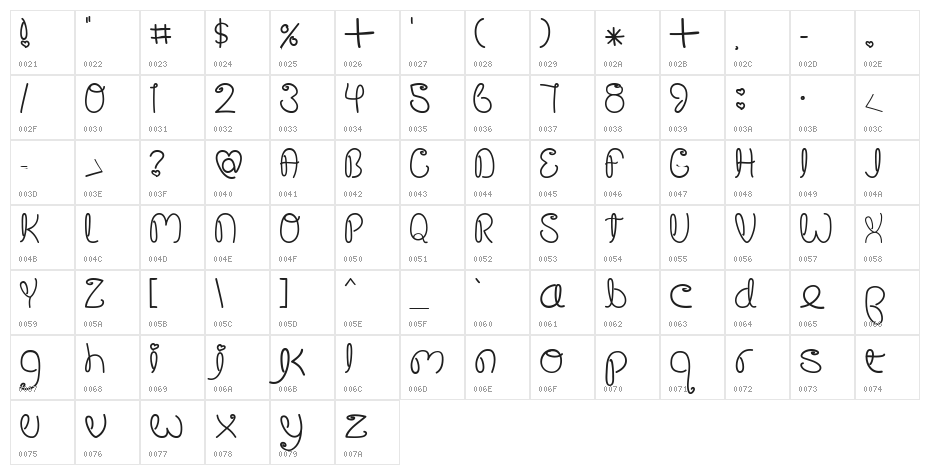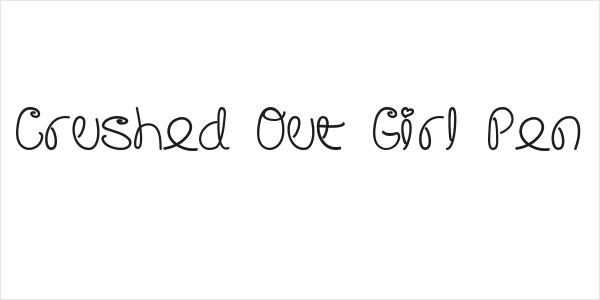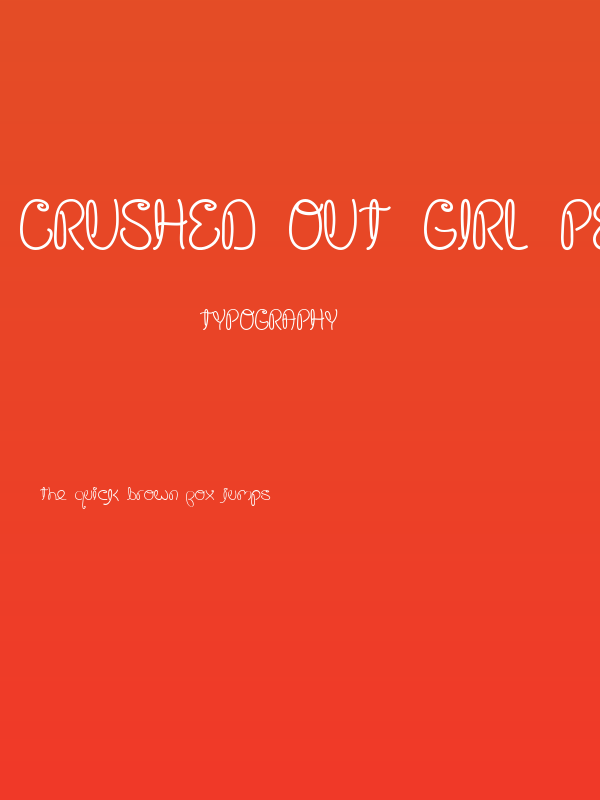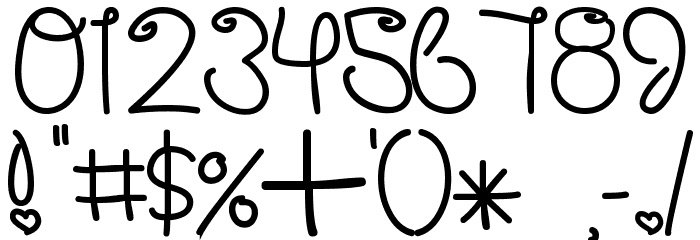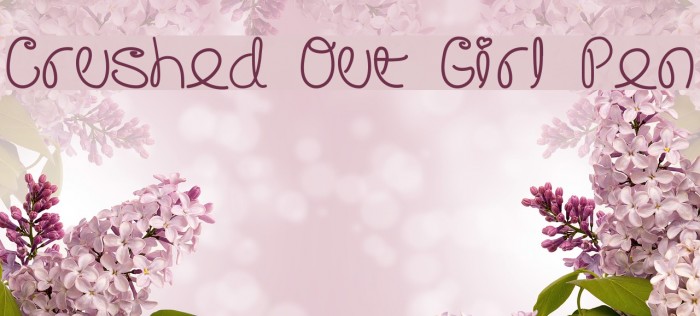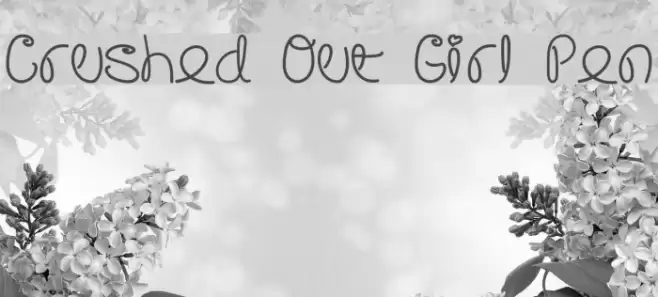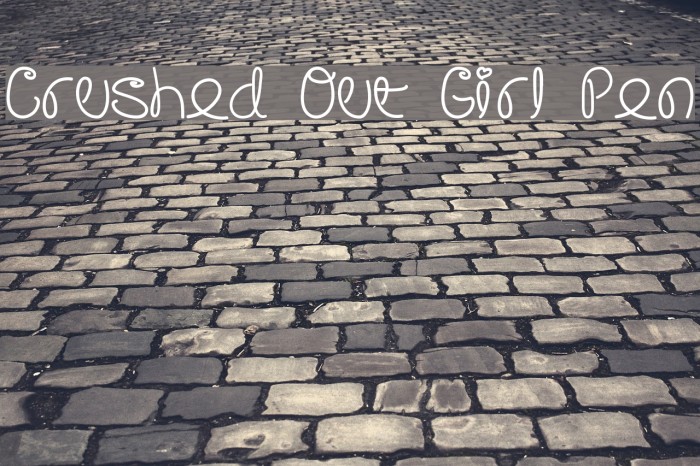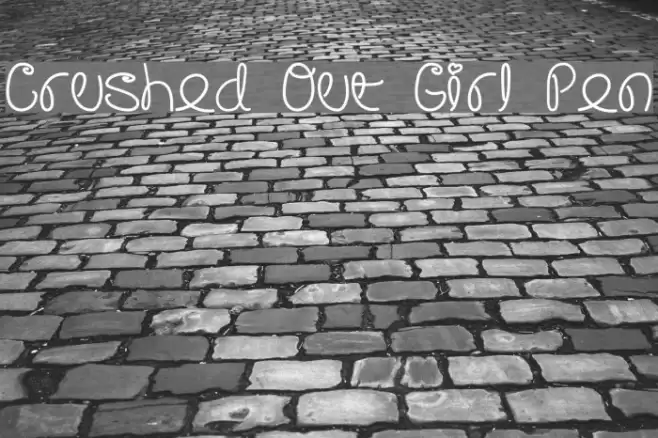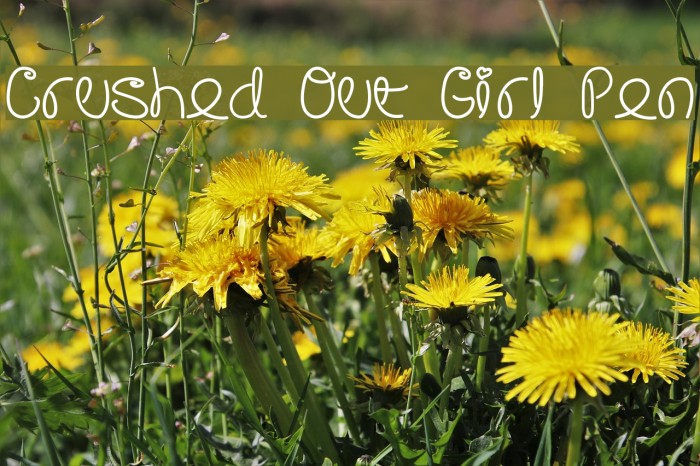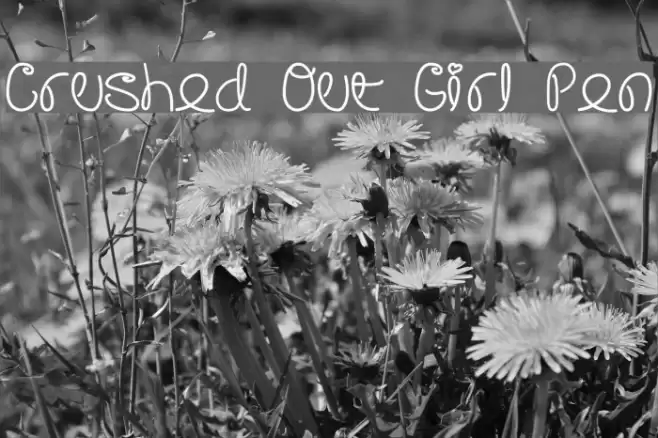
Crushed Out Girl Pen Font
Crushed Out Girl Pen Description
This playful and whimsical font features a handwritten style with a unique, curly flair. Each letter is crafted with a sense of fun and creativity, incorporating loops and swirls that give it a lively appearance. The uppercase letters are bold and expressive, while the lowercase letters maintain a consistent flow with charming embellishments. Numbers and special characters are designed to match the font's overall playful aesthetic, making it suitable for projects that require a touch of personality and charm. The font's distinct style is perfect for capturing attention and conveying a sense of joy and creativity.
| Use Case | Logos, Headlines, Creative projects |
| Proposed Projects | Ideal for greeting cards, children's books, playful branding, and creative invitations. |